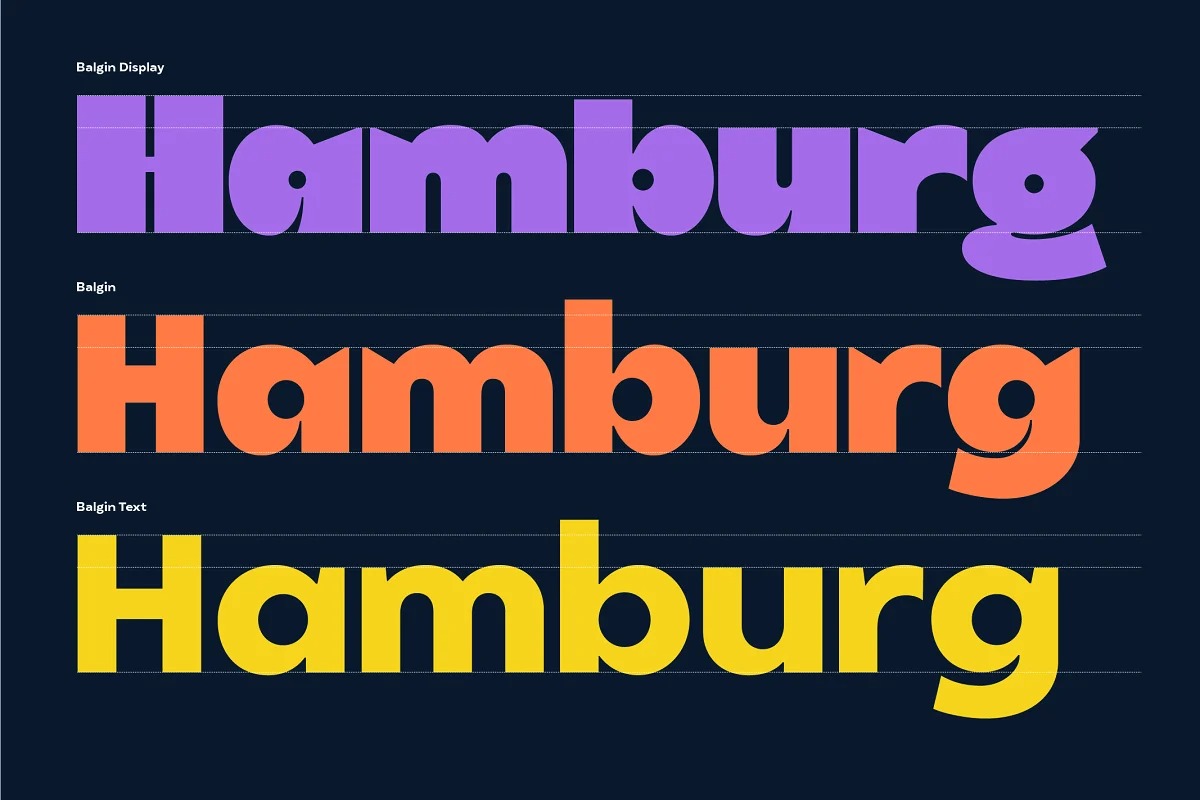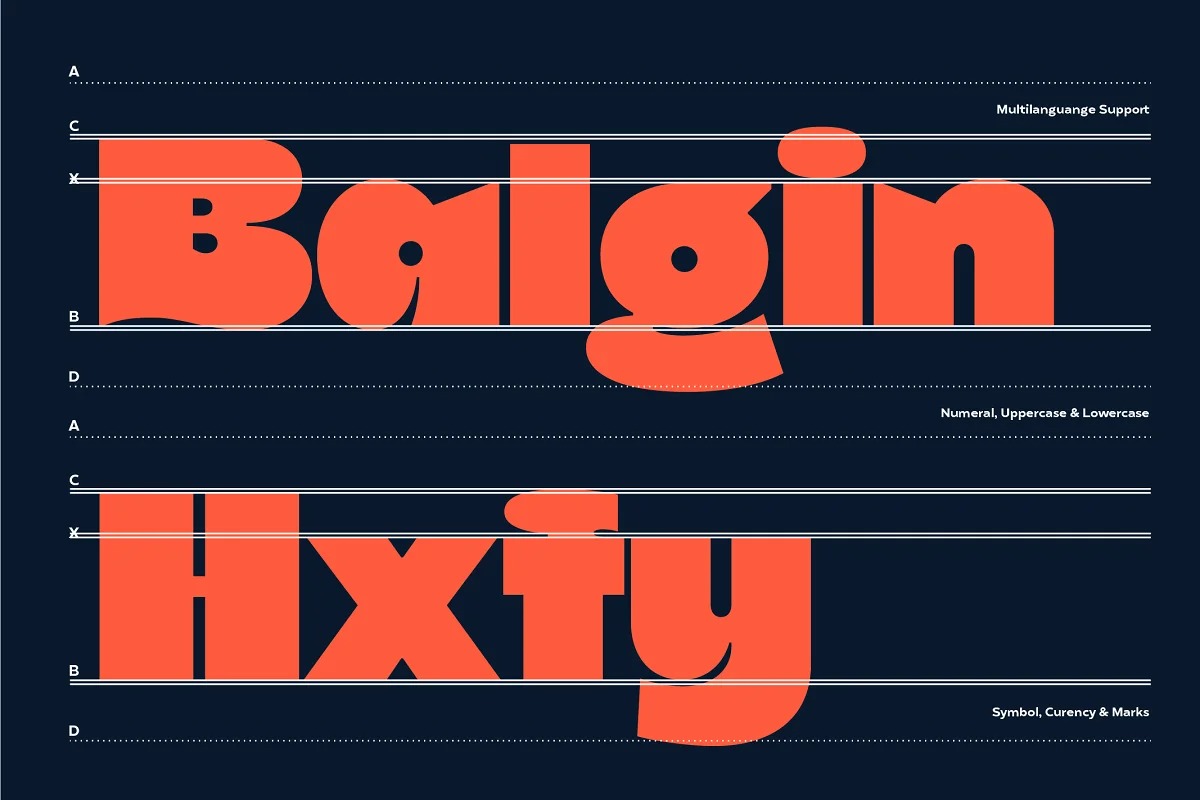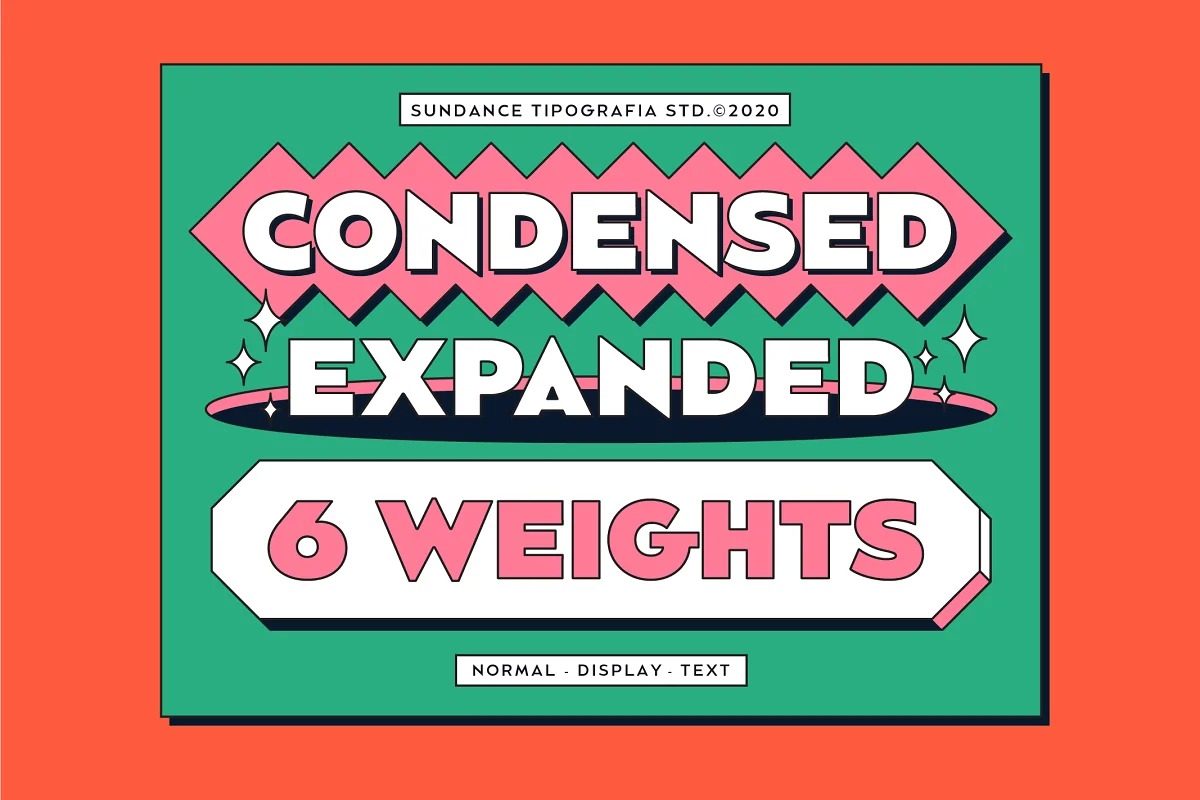
Balgin Sans Serif Font
This is the condensed version of Gothiks, a 6-weight display sans serif influenced by Texturas. It is ideal for everything big, compact and powerful. Balgin Font brings back the nostalgic era of 90’s. The 90’s were a magical time – a time of the Docs, Game Boys, and Cartoon. As everything that was once old is new again, the 90’s are making a come back.
The basic of typeface are from geometric/basic shapes (Triangle, Square, Circle) form. Some character in Display font are modified, like ‘R’K’ stroke are more dynamic. and the tail of ‘g’ are more generic. Balgin are available in 3 Flavour Typefaces (Display – Normal – Text) and have 6 different weights (For Normal are available on 5 Widths).